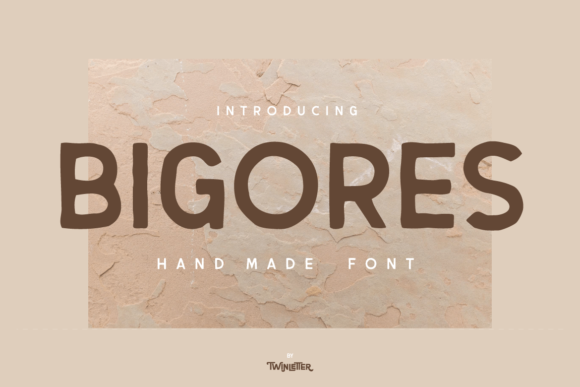
Unleash Your Creativity with Bigores Font
Have you ever stared at a blank canvas, searching for the perfect words to bring your vision to life? That’s exactly what happened to us when we first discovered Bigores Font – a bold and vintage styled display font that immediately captured our imagination. Its unique blend of classic charm and modern flair made us wonder how we ever managed without it.
Bigores Font is expertly designed to make your creations stand out from the crowd. Whether you’re a graphic designer, artist, or writer, this font will elevate your work to new heights. Its versatility and timelessness make it a valuable addition to any design toolkit, and its bold personality is sure to make your projects look out of this world.
Bigores Font Key Features
- Unique Characteristics: Bigores Font features a unique blend of modern and vintage elements, making it an ideal choice for designs that require a touch of elegance and sophistication.
Designer Review: Bigores Font
Bigores Font is an interesting addition to any designer’s toolkit. Here are some things that work well: ✨
- Unique aesthetic**: Bigores Font offers a distinctive and quirky design that can add a touch of personality to your projects.
- Good legibility**: The font is relatively easy to read, even at smaller font sizes, which is a must-have for any font.
- Wide language support**: Bigores Font supports a wide range of languages, making it a versatile choice for designers working on multilingual projects.
- Limited font sizes**: Bigores Font may not be the best choice for very large or very small font sizes, as it can become distorted or lose its unique charm.
- May not be suitable for formal projects**: The font’s playful and quirky nature may not be suitable for formal or professional projects, where a more traditional or conservative font is preferred.
Overall, I’d say that Bigores Font is a solid choice for designers looking to add some personality to their projects. While it may not be the best choice for every project, it’s a great option to have in your toolkit. Just be aware of its limitations and use it accordingly.
Bigores Font is ideal for use in headings, titles, and other emphasis text where you want to add a touch of elegance and sophistication. It’s also suitable for use in creative projects, such as infographics, posters, and flyers.
Alternatives to Bigores Font
Monserrat is a sans-serif font designed by Julieta Ulanovsky. It’s a great alternative to Bigores Font for projects that require a modern and clean look. Montserrat is more versatile and works well in both digital and print media.
Compared to Bigores Font, Montserrat has a more geometric and futuristic feel. It’s ideal for use in headlines, titles, and body text where a clear and readable font is required.